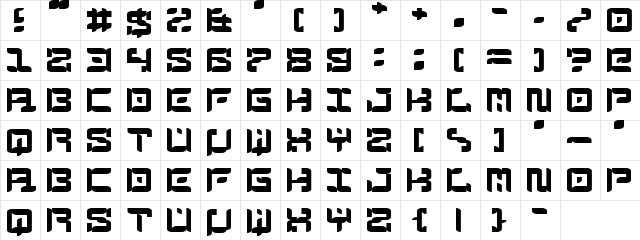
The Messenger Regular Free Font
The Messenger Regular
Designer: NAL
Design Context for The Messenger
The Messenger is a composed and adaptable typeface that performs quietly and consistently across a wide range of design contexts.